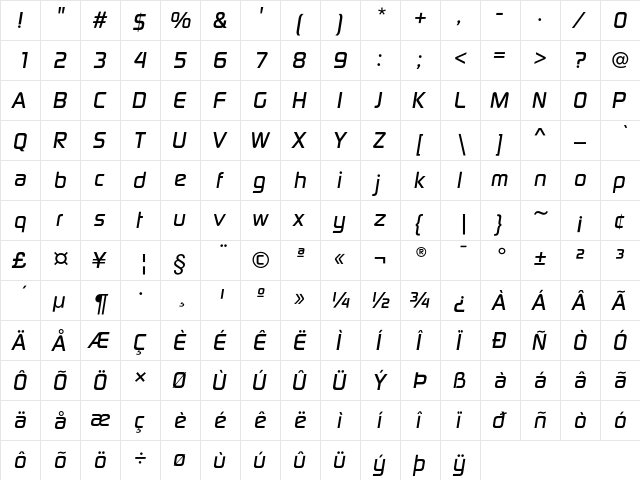
DigitalEF Medium Italic Font Preview
DigitalEF Medium Italic
Design Context for DigitalEF Typeface
DigitalEF has a distinctly futuristic character, with geometric precision and clean angles that feel at home in technology, gaming, and sci-fi contexts. The dynamic lean of this cut emphasises speed and emphasis in any layout.
Pro Tip: Use DigitalEF in combination with a neutral sans for body text. Let it define the brand voice in headlines while keeping reading comfortable elsewhere.